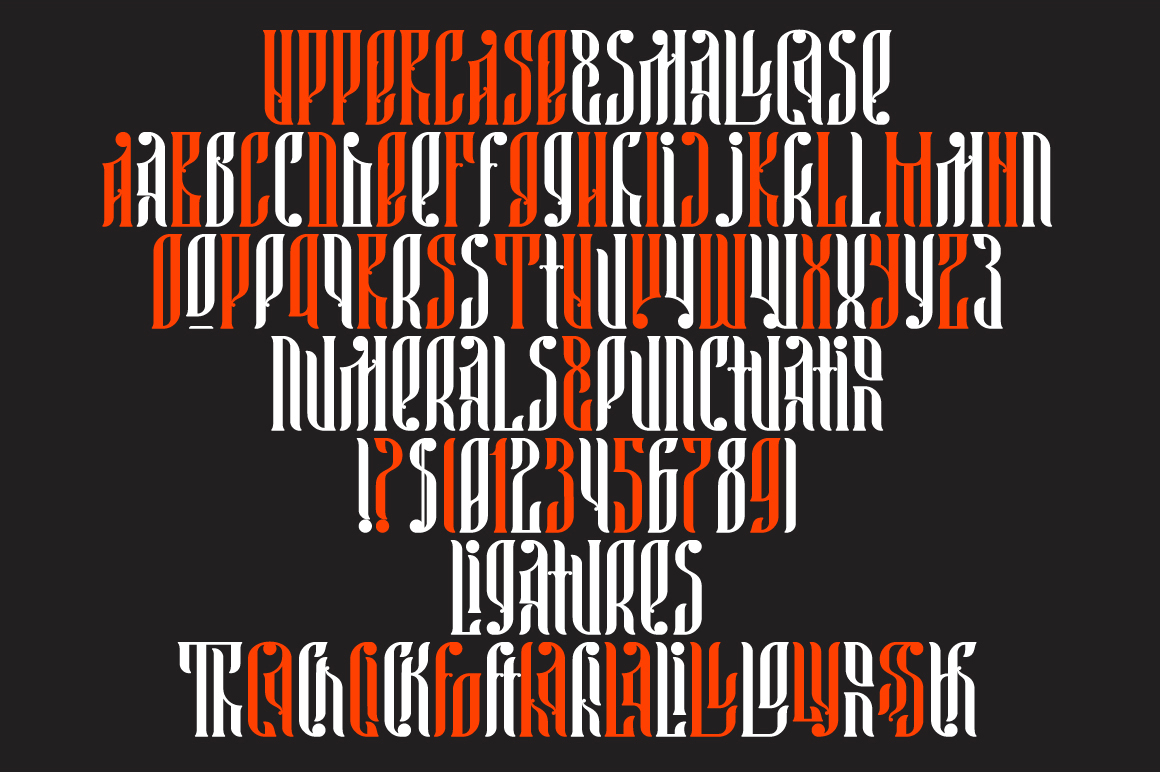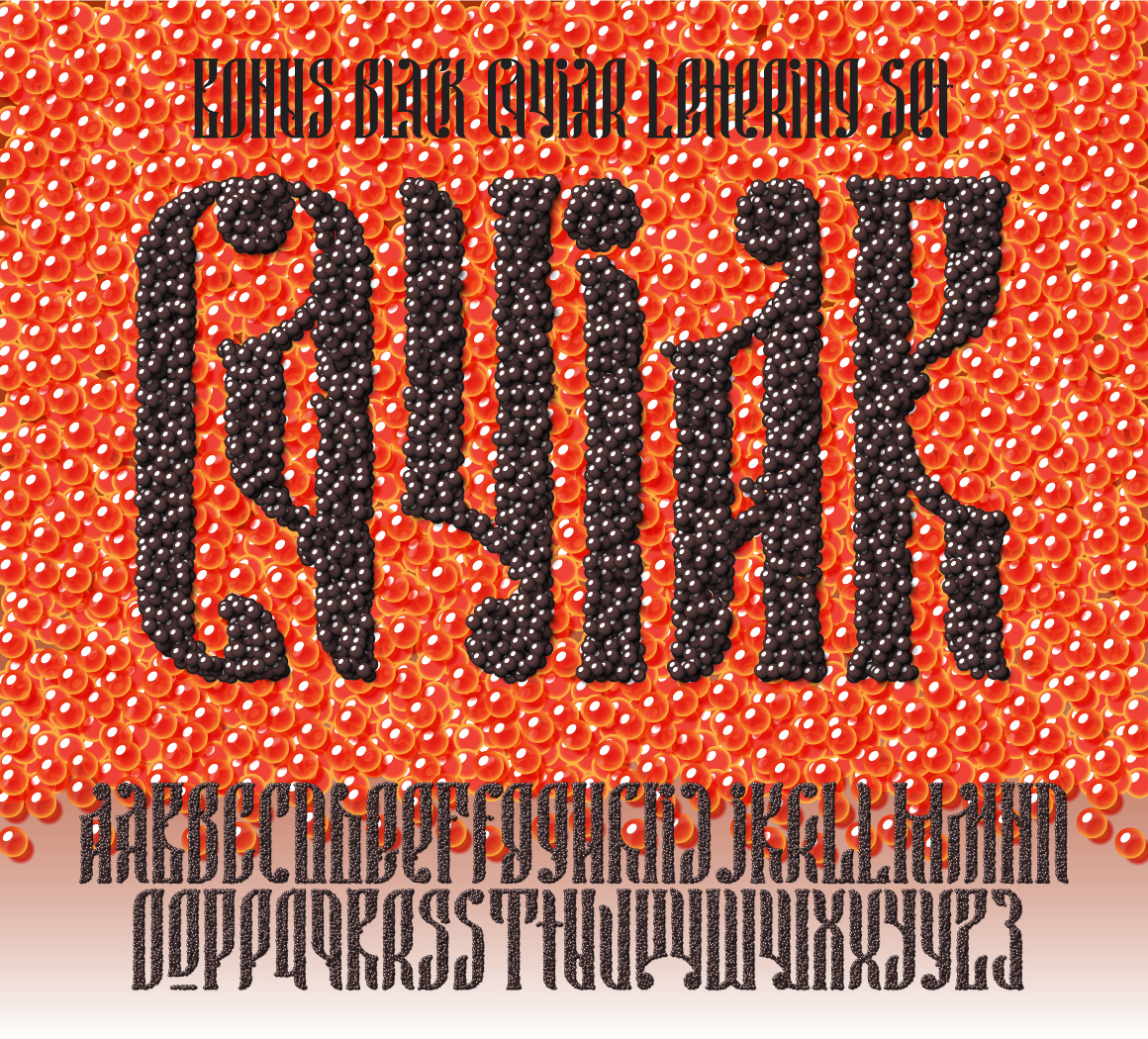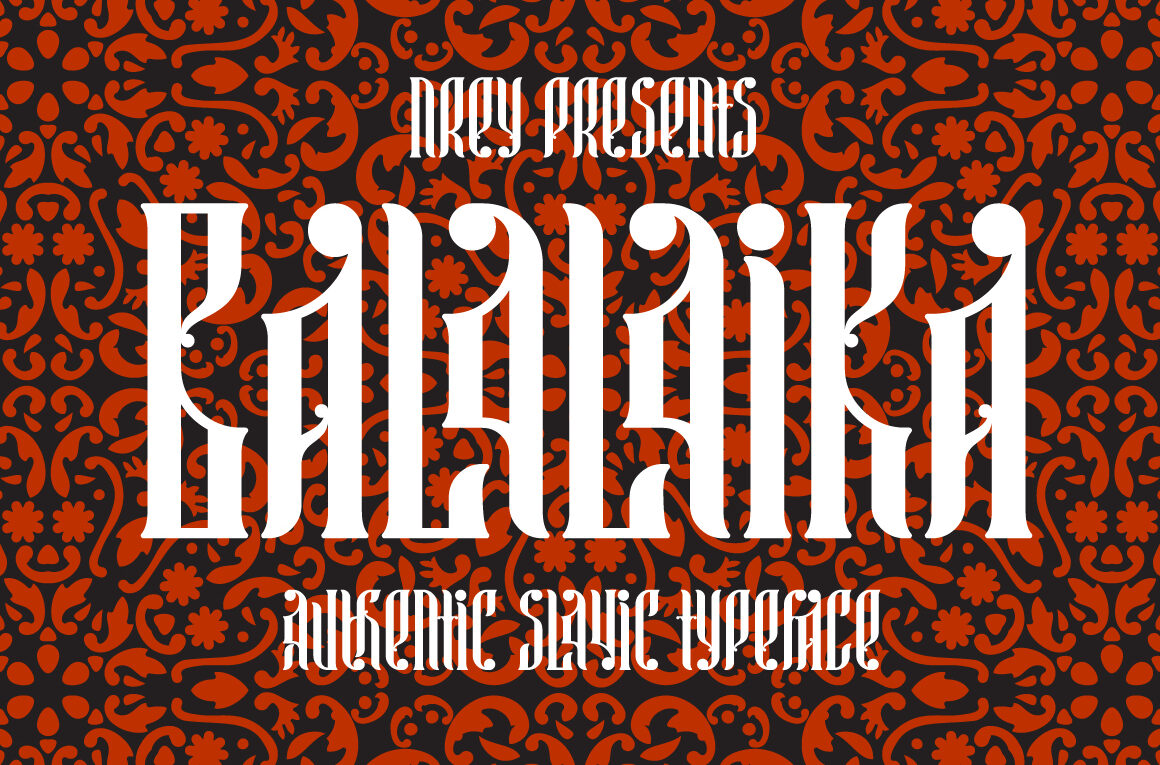
Introducing the Balalaika Font: A Unique Blend of Traditional and Modern Typography
In the world of typography, fonts play a crucial role in conveying the tone and aesthetic of a design. For designers and crafters looking to add a touch of classic elegance to their work, the Balalaika font is an excellent choice. This decorative display font combines ethnic Slavonic style typography with modern elements, making it a versatile and eye-catching addition to any design.
What is the Balalaika Font?
The Balalaika font is a decorative display font that features a unique blend of traditional Slavonic typography and modern style. Its distinctive design makes it perfect for adding a classic touch to a wide range of design projects, from large headlines to normal-sized text. The font’s unique character set and intricate details make it an excellent choice for designers looking to add a touch of sophistication and elegance to their work.
Key Features of the Balalaika Font
- Ethnic Slavonic Style Typography: The Balalaika font features traditional Slavonic typography, which gives it a unique and distinctive look.
- Modern Style: The font combines traditional elements with modern style, making it perfect for contemporary design projects.
- Decorative Display Font: The Balalaika font is a decorative display font, making it perfect for large headlines and titles.
- Versatile: The font works well with both normal-sized text and large headlines, making it a versatile choice for a wide range of design projects.
Uses of the Balalaika Font
The Balalaika font is a versatile font that can be used in a wide range of design projects, including:
- Logos and Branding: The font’s unique and distinctive design makes it perfect for logos and branding projects.
- Headlines and Titles: The font’s decorative display style makes it perfect for large headlines and titles.
- Signage and Advertising: The font’s classic and elegant design makes it perfect for signage and advertising projects.
- Packaging and Labeling: The font’s unique character set and intricate details make it an excellent choice for packaging and labeling projects.
Benefits of Using the Balalaika Font
There are several benefits to using the Balalaika font in your design projects, including:
- Unique and Distinctive Design: The font’s unique blend of traditional and modern elements makes it stand out from other fonts.
- Versatile: The font works well with both normal-sized text and large headlines, making it a versatile choice for a wide range of design projects.
- Elegant and Classic: The font’s classic and elegant design makes it perfect for adding a touch of sophistication to your designs.
- Easy to Read: Despite its decorative style, the font is easy to read, making it perfect for use in a wide range of design projects.
Tips for Using the Balalaika Font
Here are a few tips for using the Balalaika font in your design projects:
- Use it Sparingly: The font’s decorative style makes it perfect for use in large headlines and titles, but it can be overwhelming if used too much.
- Pair it with a Simple Font: Pairing the Balalaika font with a simple font can help to create a balanced and harmonious design.
- Experiment with Different Sizes: The font works well with both normal-sized text and large headlines, so don’t be afraid to experiment with different sizes.
The Balalaika font is a unique and versatile font that can add a touch of classic elegance to a wide range of design projects. Its blend of traditional Slavonic typography and modern style makes it a distinctive and eye-catching choice for designers and crafters. With its decorative display style, intricate details, and easy-to-read design, the Balalaika font is an excellent choice for anyone looking to add a touch of sophistication to their designs.